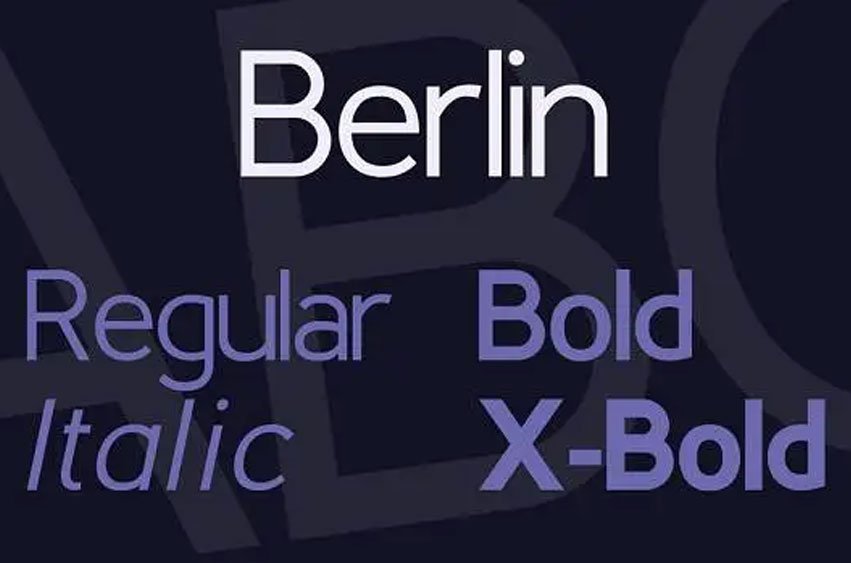
Berlin Bold Font To coincide with what has been regarded as globalization, Berlin is a series of demonstrations fonts that is inspired by the simplest geometric type face of early this century. Berlin currently includes four versions, with every one of them available in three different weights – Berlin Bold, Berlin, Berlin Bold X. As for Mr Red, Mark and I started designing the font with him in spring with the intention of creating a font system usable in slogans, promotional materials and what not.
That is why as far as I being no font designer I have spent too much time selecting the font and we came to the decision to use hand crafted designs, and eventually abandoning this idea. However, I did not relinquish working on the typeface for my free time and was able to develop few variations like the Berlina, Slaberlin and Uberlin; with the Uberlin having the three styles: the common, bold, and x-bold typeface style, in addition to the italic version for the Berlin typeface.